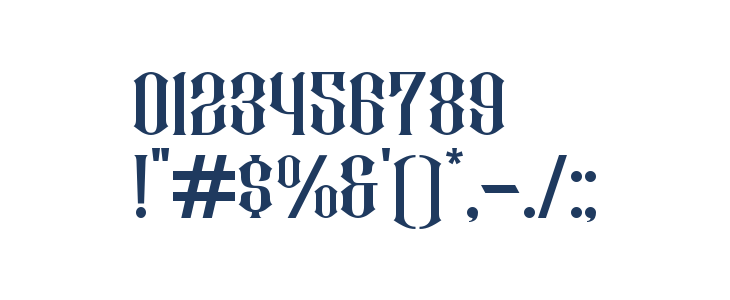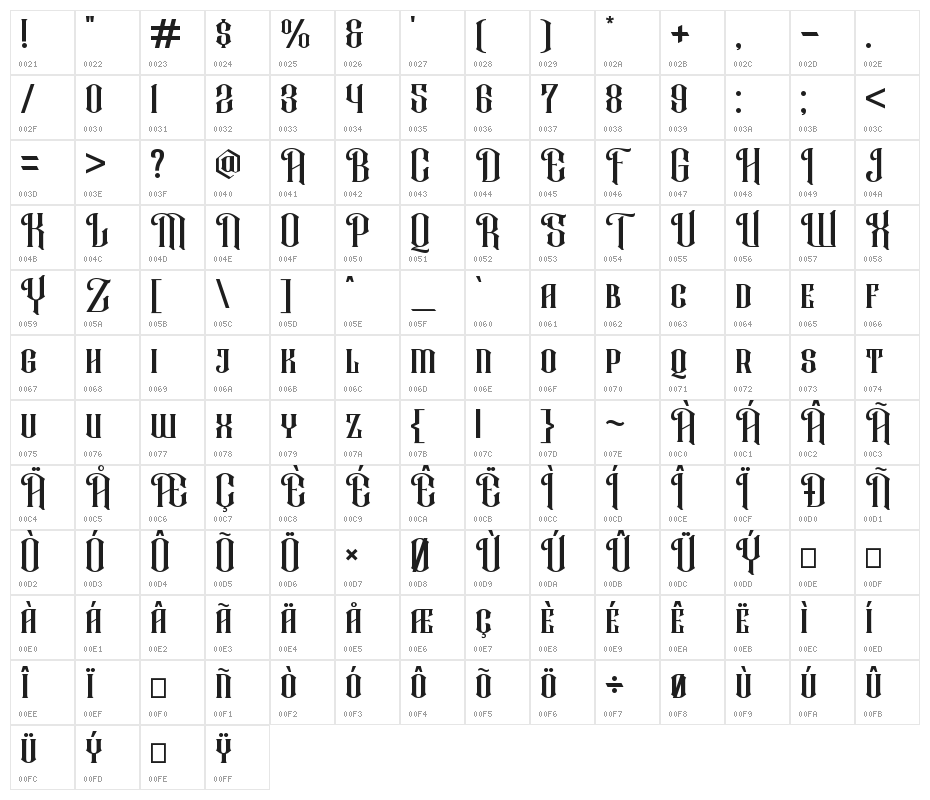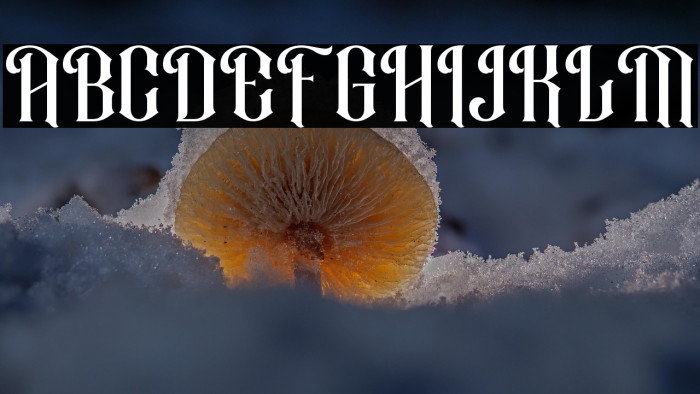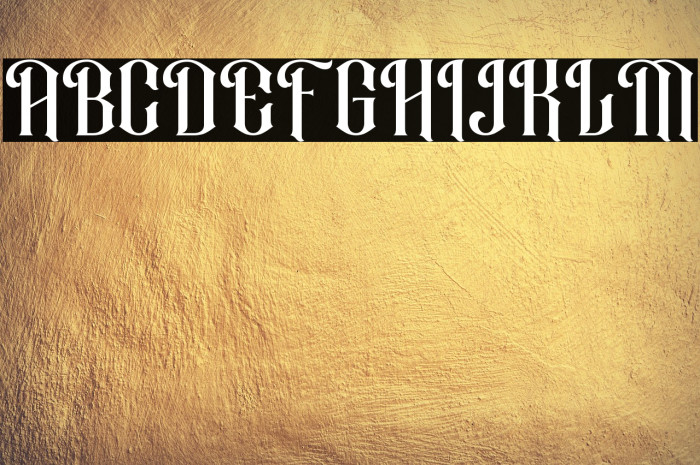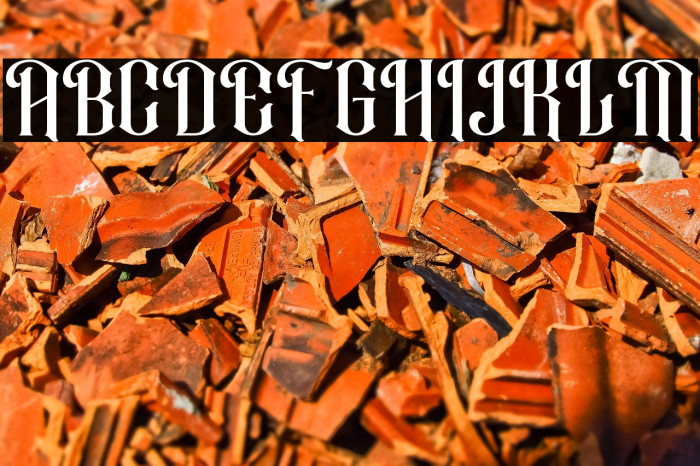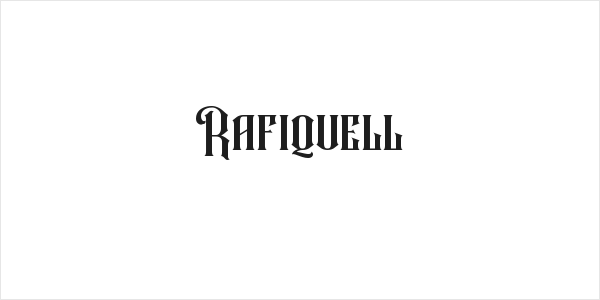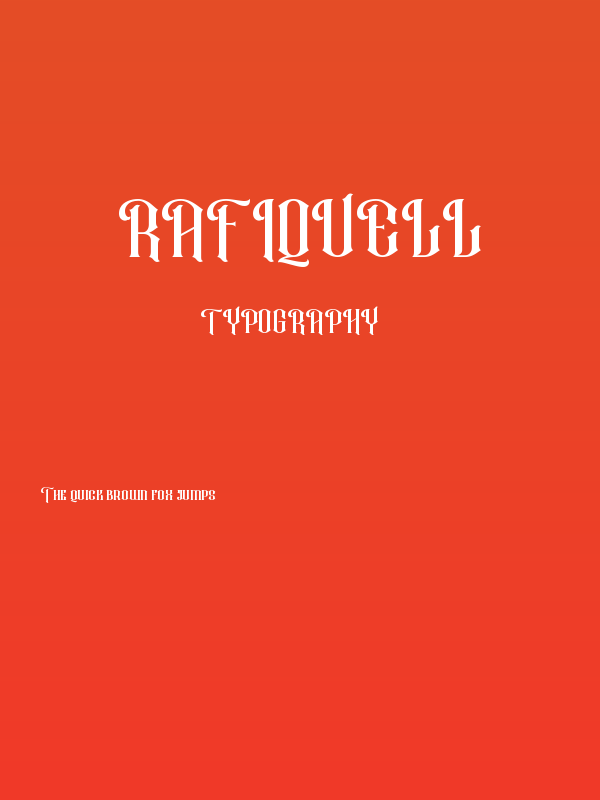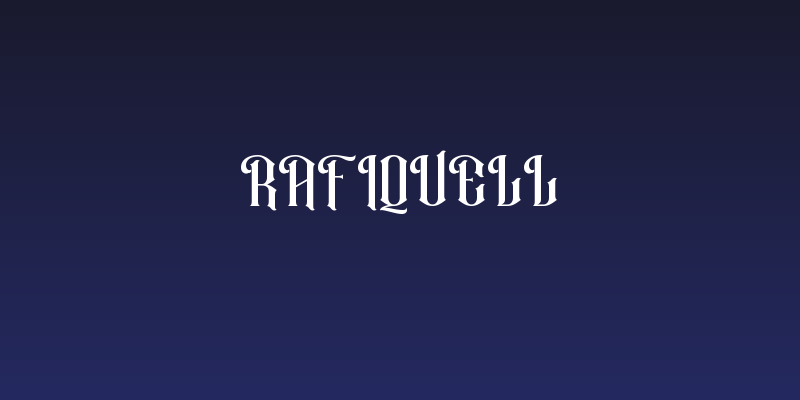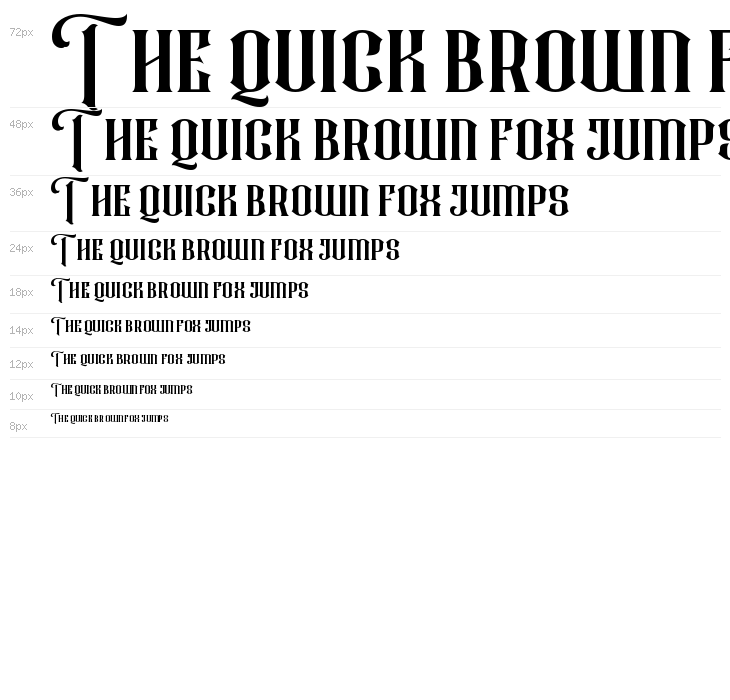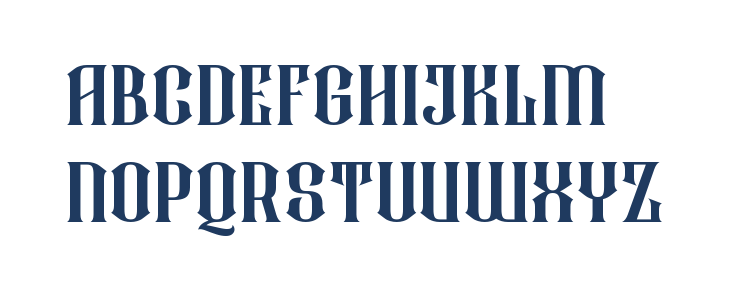
Rafiquell Font
Rafiquell Description
This font features a bold and striking design with a strong blackletter influence. The uppercase letters are characterized by sharp, angular lines and dramatic flourishes, giving them a gothic and medieval appearance. The lowercase letters maintain the same boldness, with a slightly more condensed form, enhancing readability while preserving the decorative style. The numerals are equally bold, with a consistent weight that complements the letterforms. Special characters are designed with the same attention to detail, ensuring a cohesive look across all glyphs. This font's unique style makes it ideal for projects that require a touch of historical or dramatic flair.